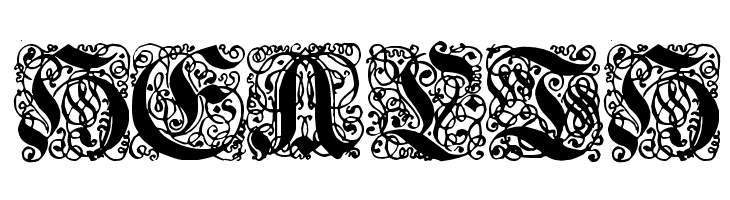
A bold, angular font with a futuristic and sporty style.
A modern, elegant handwritten font with fluid strokes and a dynamic slant.
A bold geometric font with Art Deco influences, featuring tall, narrow letters and consistent stroke widths.
A bold, graffiti-inspired font with angular, geometric shapes and a rebellious aesthetic.
A bold, geometric font with Art Deco influences and clean lines.
A bold, geometric font with unique circular elements and a modern aesthetic.
An elegant italic font with medium contrast and classic styling.
A bold, brush-style font with dynamic, hand-drawn characteristics.
Cartoon animal illustrations form each character for a playful, child-friendly look.
A classic, elegant serif font with graceful curves and pronounced serifs.
A bold, modern font with thick, uniform strokes and a geometric style.
A bold, distressed font with a rugged, hand-drawn appearance.
A classic blackletter font with ornate, medieval-inspired design.
A bold, italicized font with a distressed, edgy texture.
A playful, hand-drawn font with tall, narrow characters and whimsical symbols.
A bold, geometric font with gothic influences and high contrast strokes.
A playful, casual handwritten font with irregular strokes and a whimsical appearance.
A bold, layered font with a modern and edgy design.